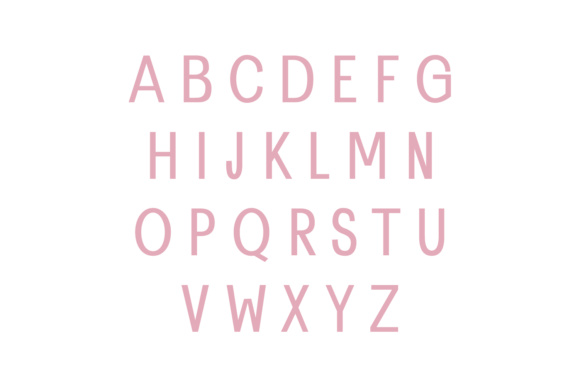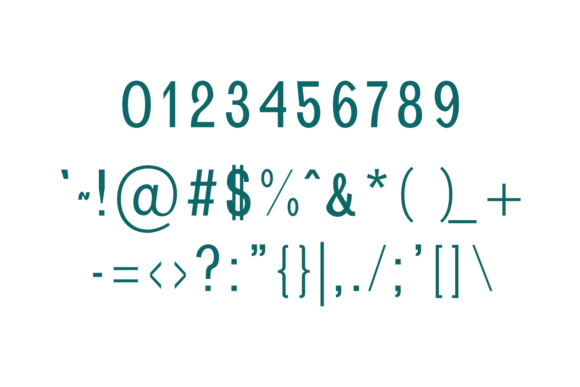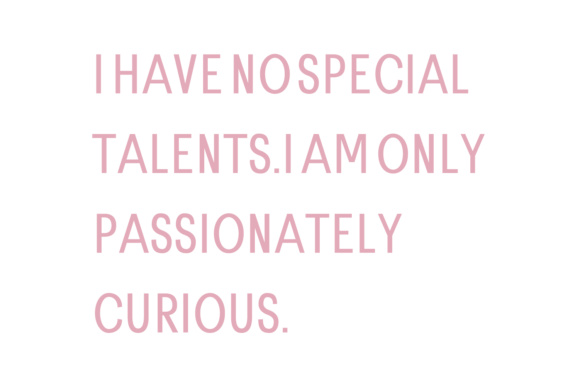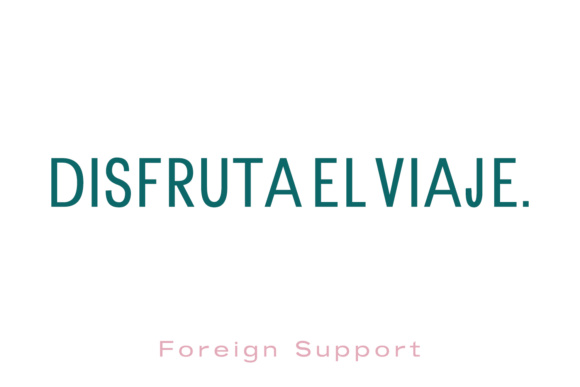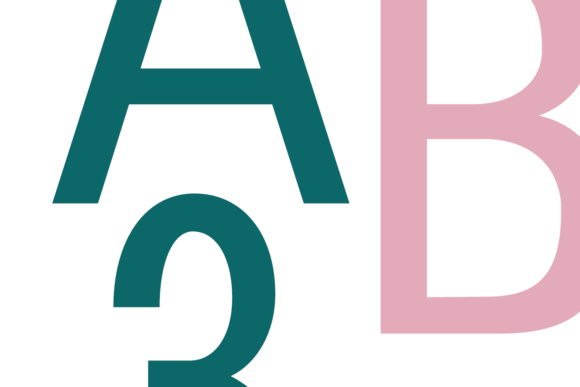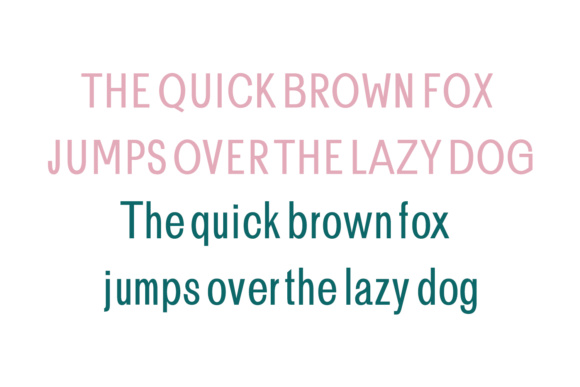
Unleash Timeless Elegance with the Brendon Font
There’s something magical about discovering a new font that elevates your designs to the next level. It’s the moment when your creative vision clicks into place, and you can’t wait to share it with the world. For designers, this feeling is all too familiar, and it’s precisely what happens when you meet the Brendon Font.
This striking sans serif is more than just a pretty face – it’s a powerful tool that adds a timeless touch to your work. With three weights to choose from (regular, light, and smooth), you can tailor the Brendon Font to suit your unique style and project needs. Whether you’re crafting a brand identity, designing a website, or creating a marketing campaign, the Brendon Font is sure to make a lasting impression.
- Unique Characteristics: This font features a modern, elegant design with a unique blend of curves and geometric shapes, making it perfect for creative and professional projects.
- Font Weight: The font is available in 8 different weights, ranging from Light to Black, allowing for a high degree of customization and flexibility.
Brendon Font Review
At first glance, the Brendon font seems like a solid choice for your next design project. Here’s what I think works well:
- ✨ Friendly and approachable feel: Brendon font has a warm and inviting personality that can work well for branding and advertising projects.
- ✨ High legibility: The font is designed to be easy to read, even at small sizes, making it a great choice for body text.
- ✨ Customizable: Brendon font comes in a range of weights and styles, giving you the flexibility to adjust the look to suit your needs.
- ⚠️ Limited expressiveness: While Brendon font is friendly, it can also come across as a bit generic and lacking in personality, which may not be ideal for projects that require a stronger emotional connection.
- ⚠️ Limited international support: Brendon font may not support certain languages or character sets, which can be a problem if you need to target a global audience.
Overall, Brendon font is a solid, middle-of-the-road choice that can work well for a range of projects. However, it may not be the best fit for projects that require a bold, attention-grabbing look or international support.
For a professional look, pair the Brendon font with a clean and modern template.
For a high-end look, use the Brendon font with advanced typography features like ligatures and contextual alternates.
For a polished look, use the Brendon font consistently throughout your presentation or document.
The Brendon font is suitable for:
Branding and logos
Headlines and titles
Corporate communications and reports
Editorial and publishing
Use the Brendon font to create a consistent visual identity.
Pair the font with a clean and modern template or design.
Inter Font is a clean, sans-serif font designed for digital use. It is highly legible and versatile, making it suitable for a wide range of applications, including body text, headings, and titles. Inter Font is a more modern and sleek alternative to Brendon Font, with a more condensed character set.
Arial Font is a classic, sans-serif font that is widely used in digital media. It is clear and easy to read, but may lack the sophistication of Brendon Font. Arial Font is a more traditional choice and is suitable for applications where a neutral, non-descript font is required.
Montserrat Font is a geometric sans-serif font designed for urban environments. It is highly legible and versatile, making it suitable for a wide range of applications, including body text, headings, and titles. Montserrat Font is a more dramatic and attention-grabbing alternative to Brendon Font, with a more angular character set.
The Brendon Font is designed to be versatile and can be used at a variety of font sizes. However, for optimal readability, we recommend using font sizes between 12pt and 24pt for body text, and larger font sizes for headings and titles.